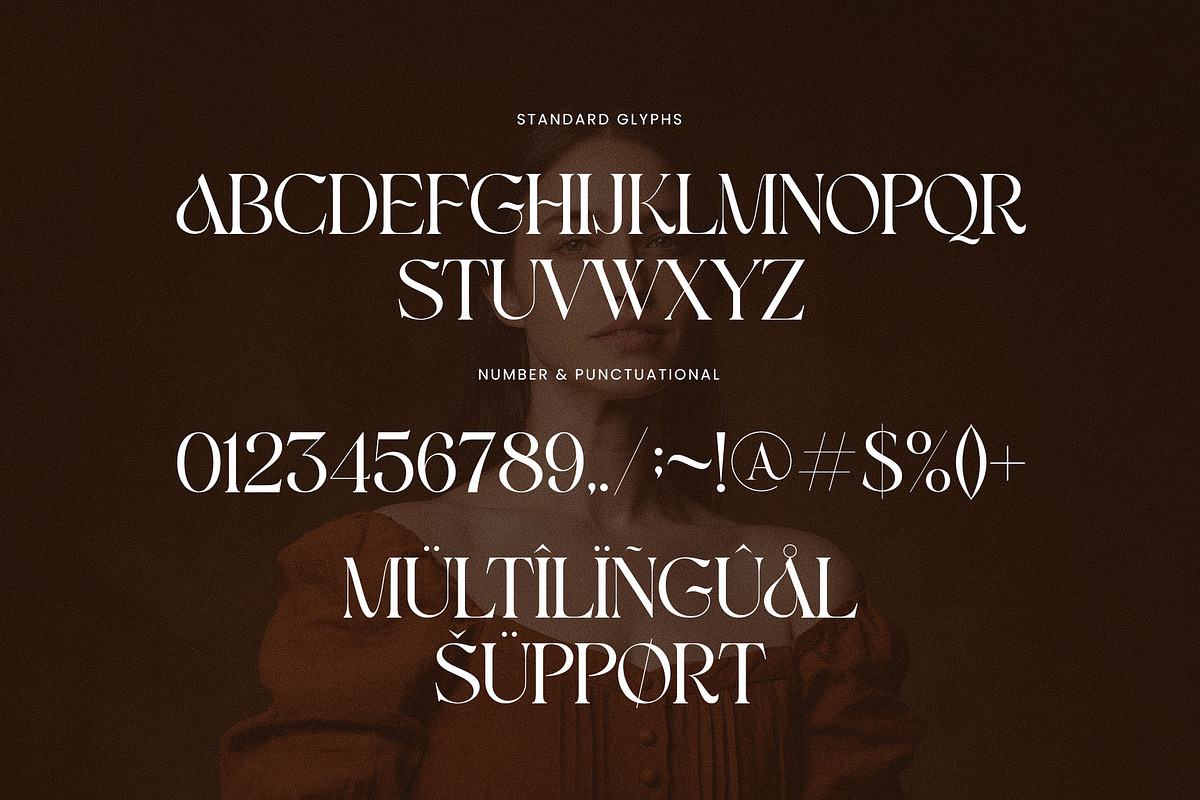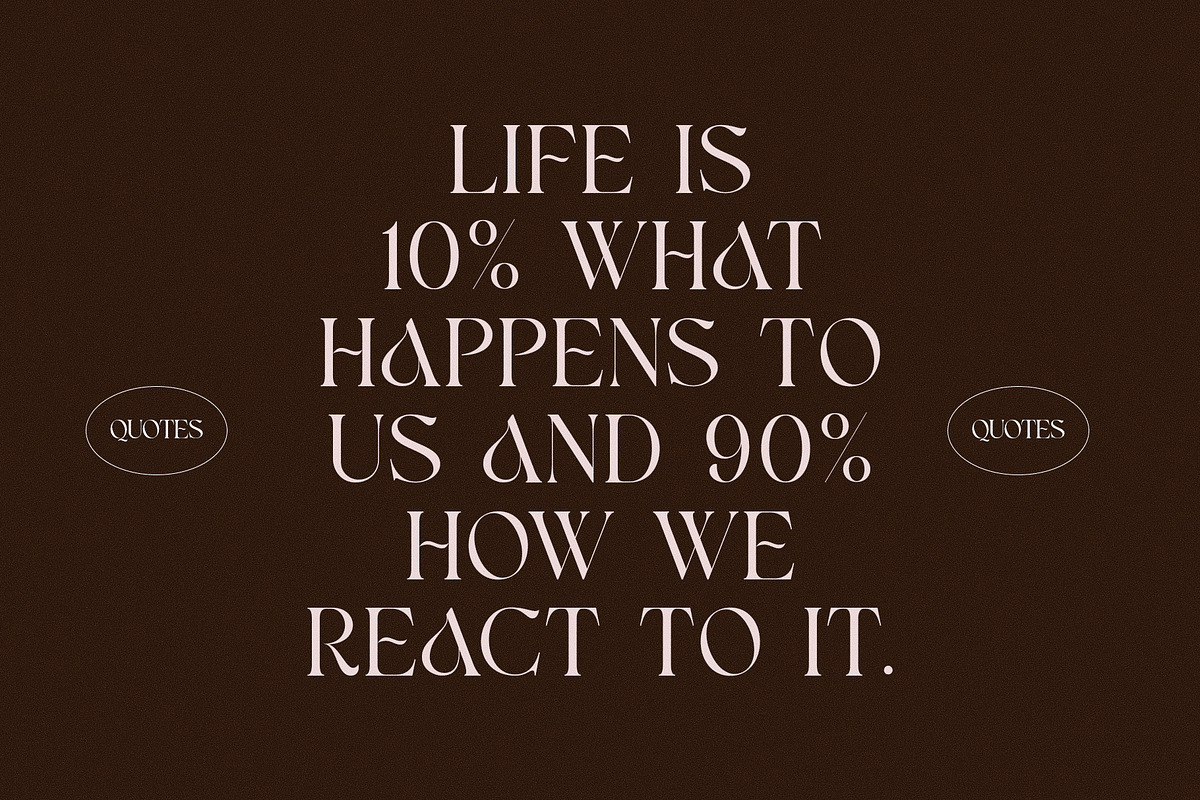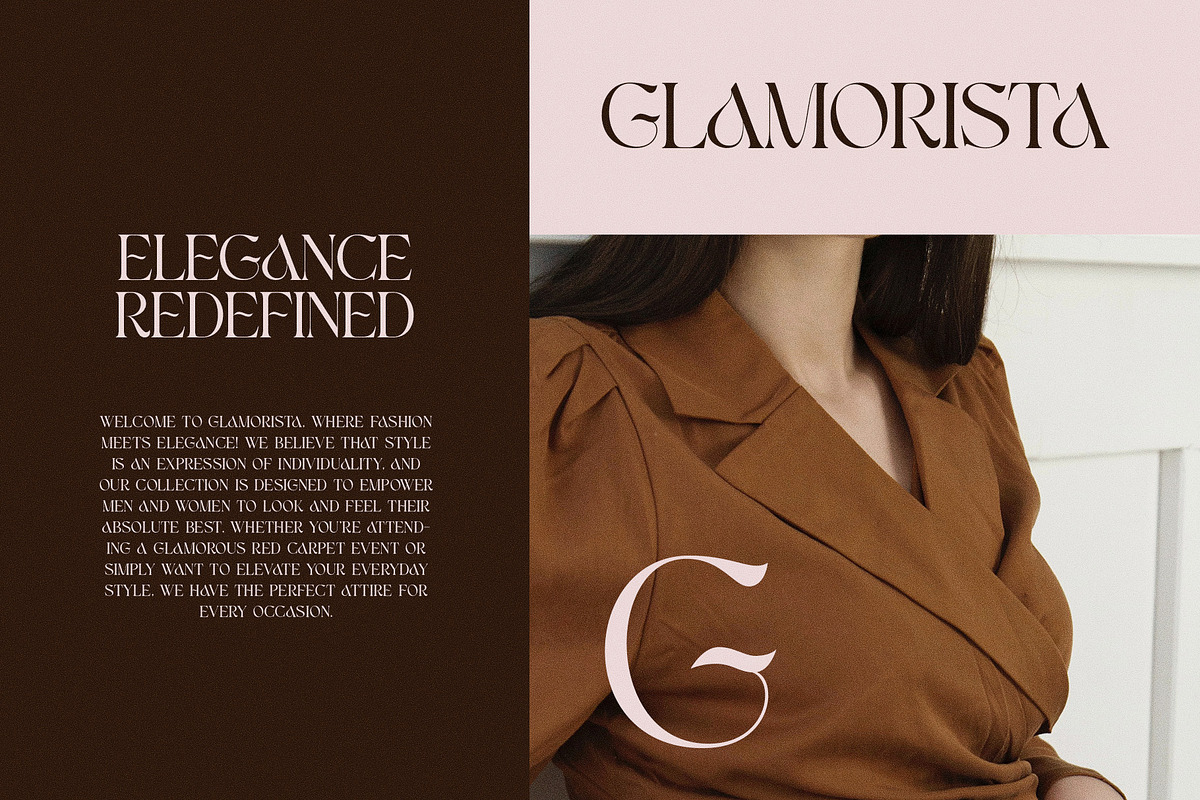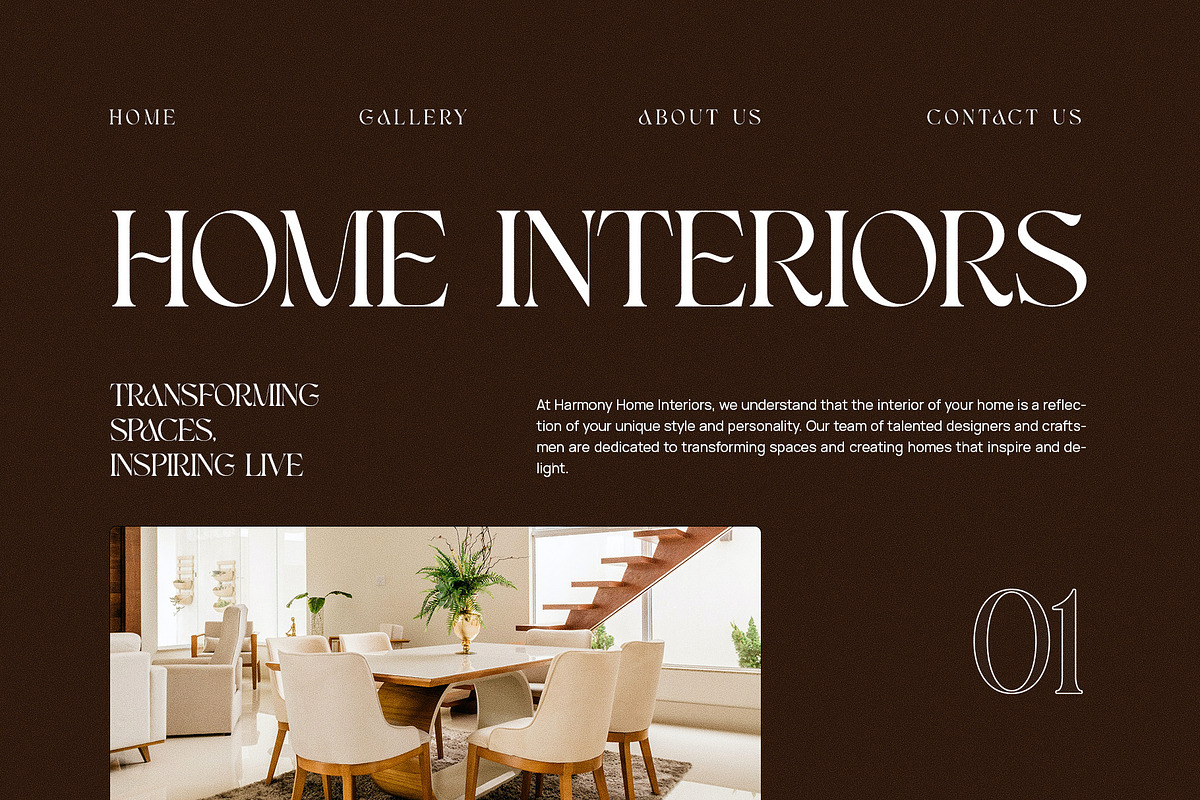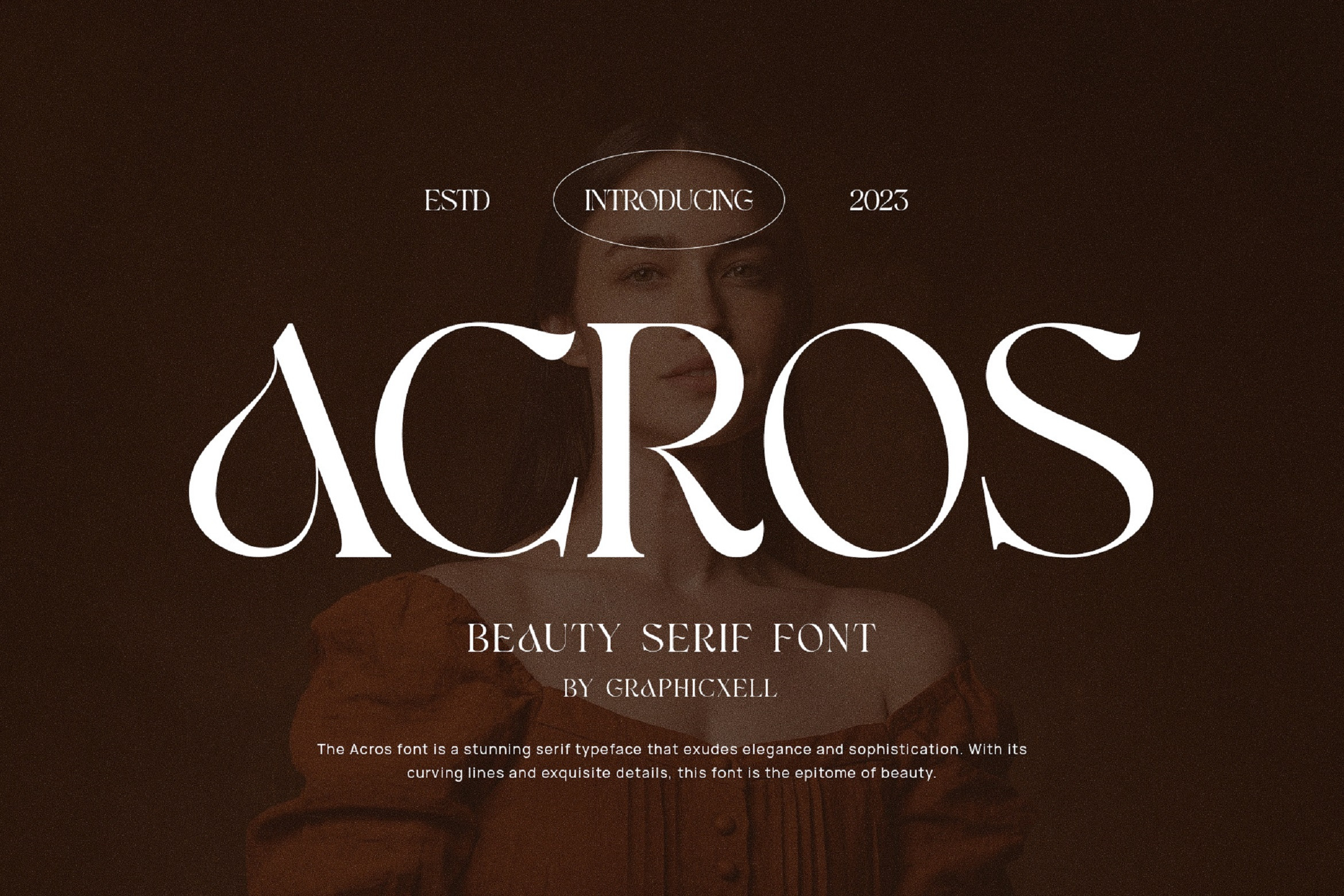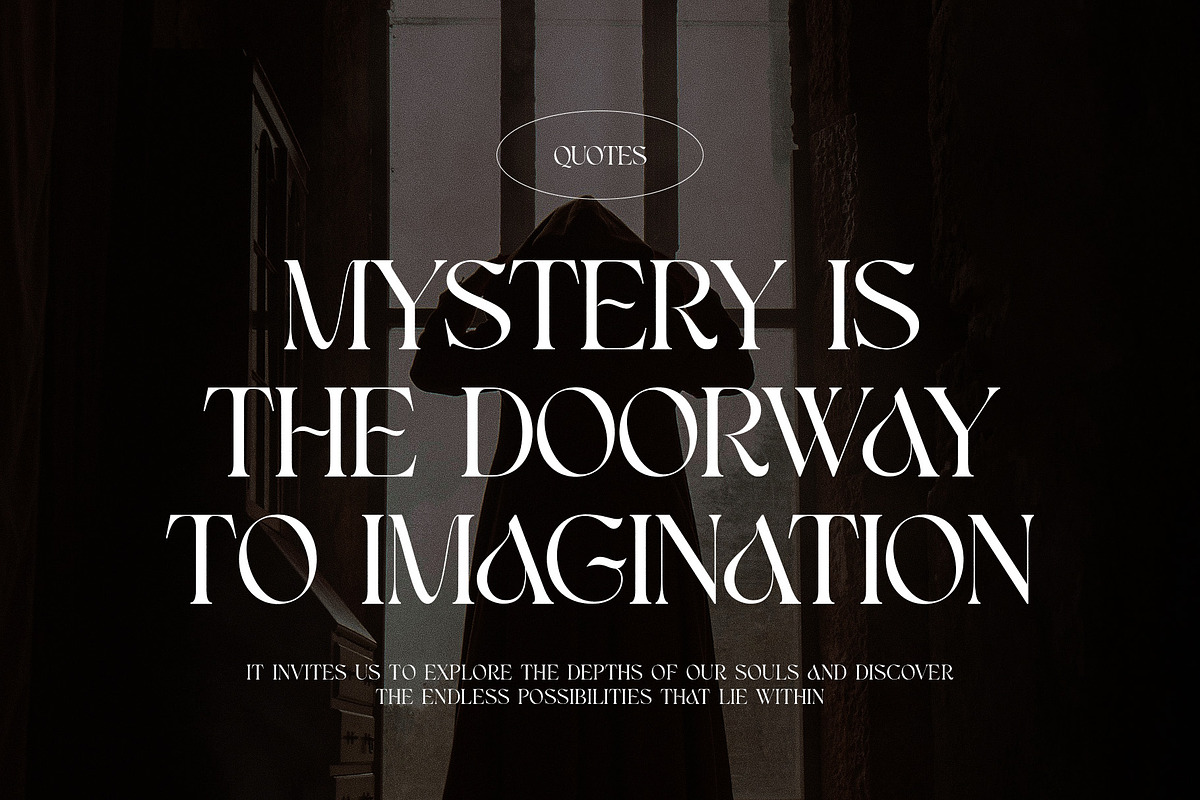
Acros Elegant Serif Font Typeface
Acros Elegant Serif Font Typeface can be considered as one of the most beautiful serif fonts today. In fact, it comes with exquisite details, making it look very striking. The best part of this beauty serif font is the curving lines that can easily grab people’s attention through its elegance. The curves are also not monotonous so that it is not right to call it the epitome of beauty. From any side you look at it, this font is always stunning. The perfect letterform also plays a big role in creating elegance and sophistication. So, this font is ideal for any graphic design projects. You can use this elegant serif font for product design, logos, advs, social media posts, and many more. With this font, no one can look away from the beauty of your design. That’s why Acros Elegant Serif Font Typeface can be a must-have tool for those who want to add beautiful art through writing